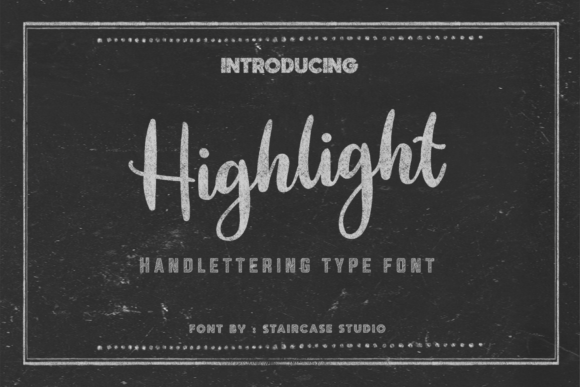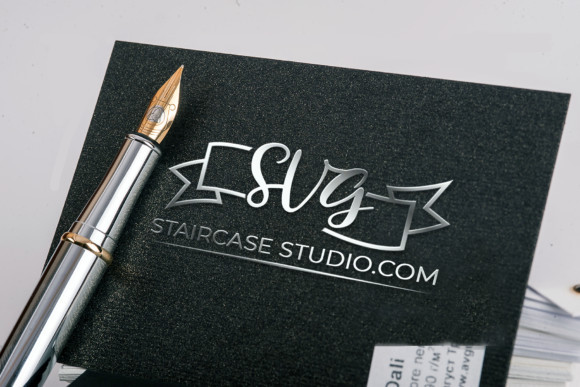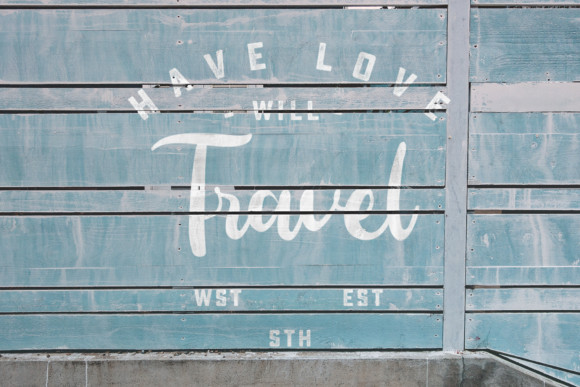
Highlight Font
Highlight is a modern handwritten font, carefully handcrafted to become a true favorite. Its casual charm makes it appear wonderfully down-to-earth, readable and, ultimately, incredibly versatile. It will look outstanding in any context, whether it’s being used on busy backgrounds or as a standalone headline